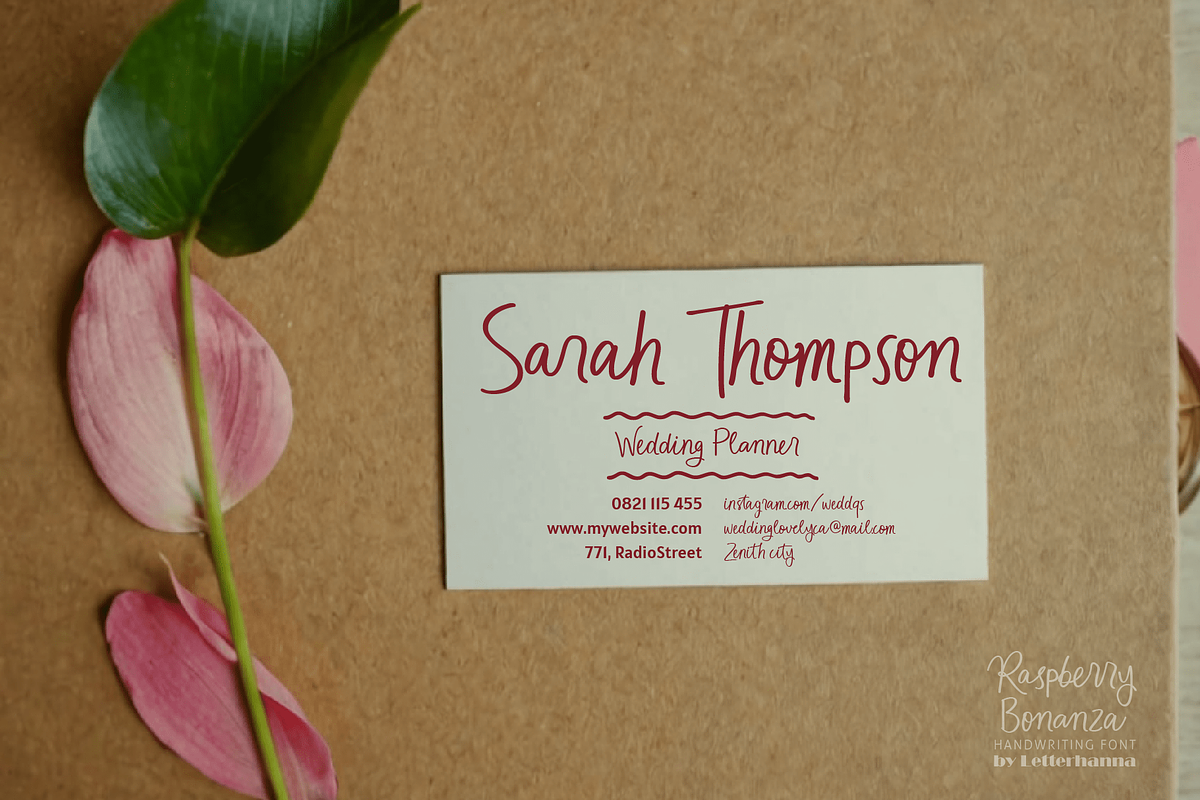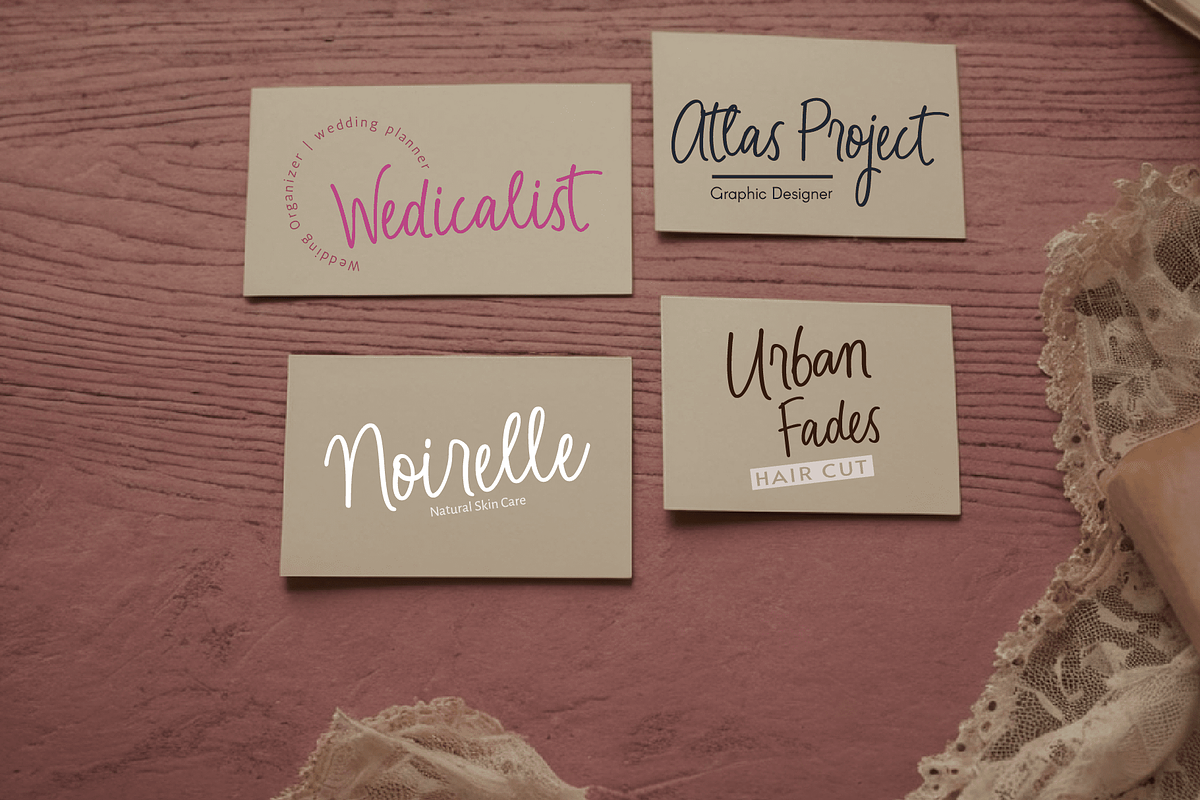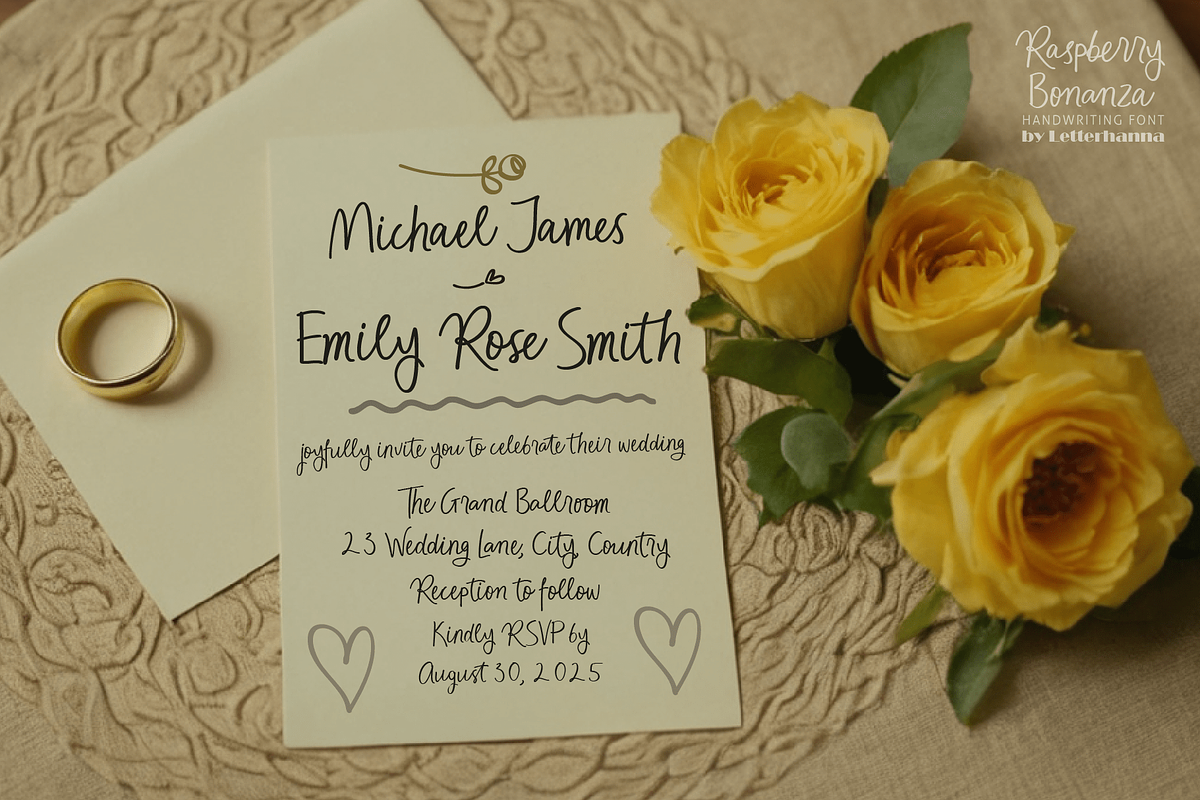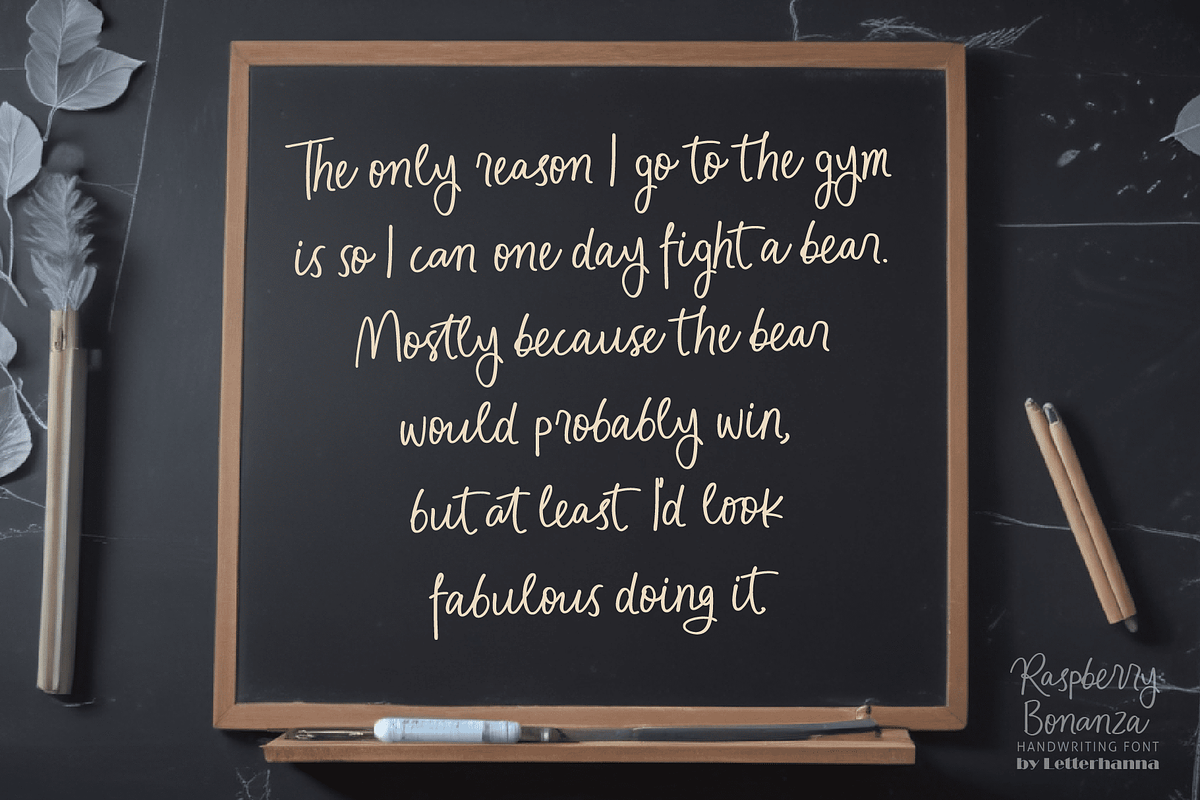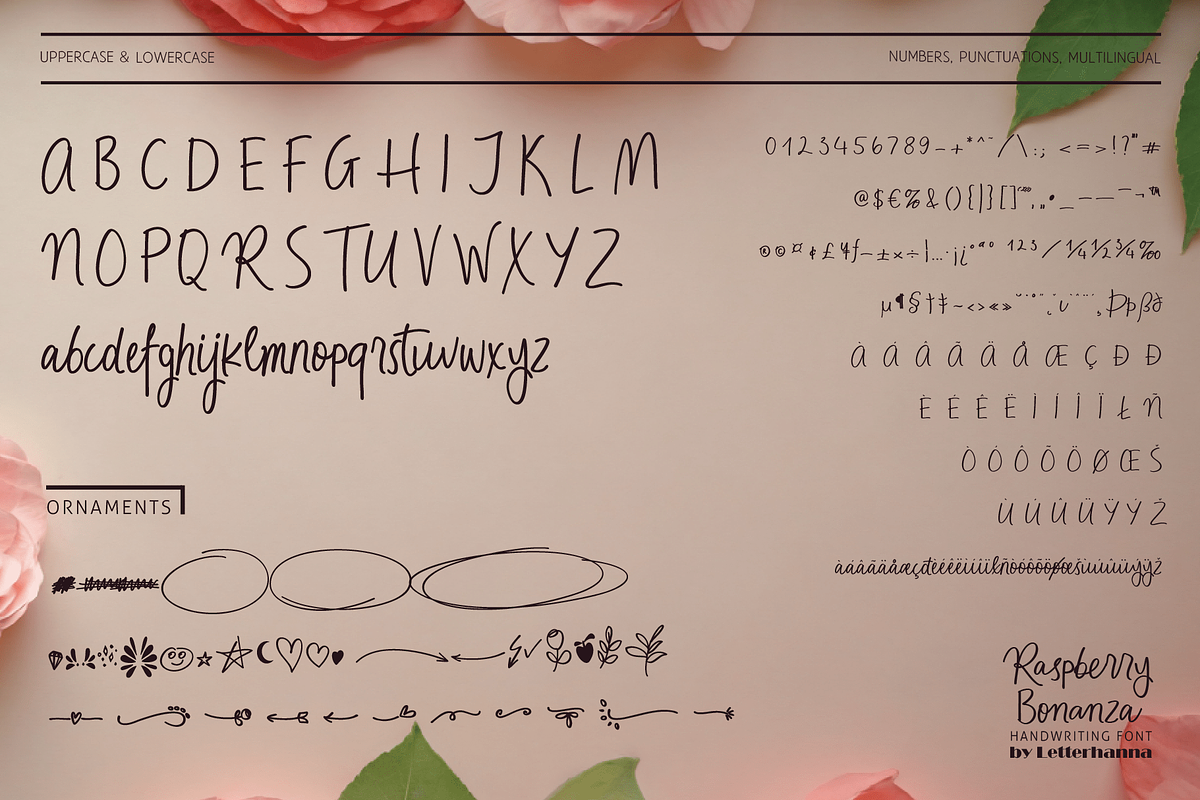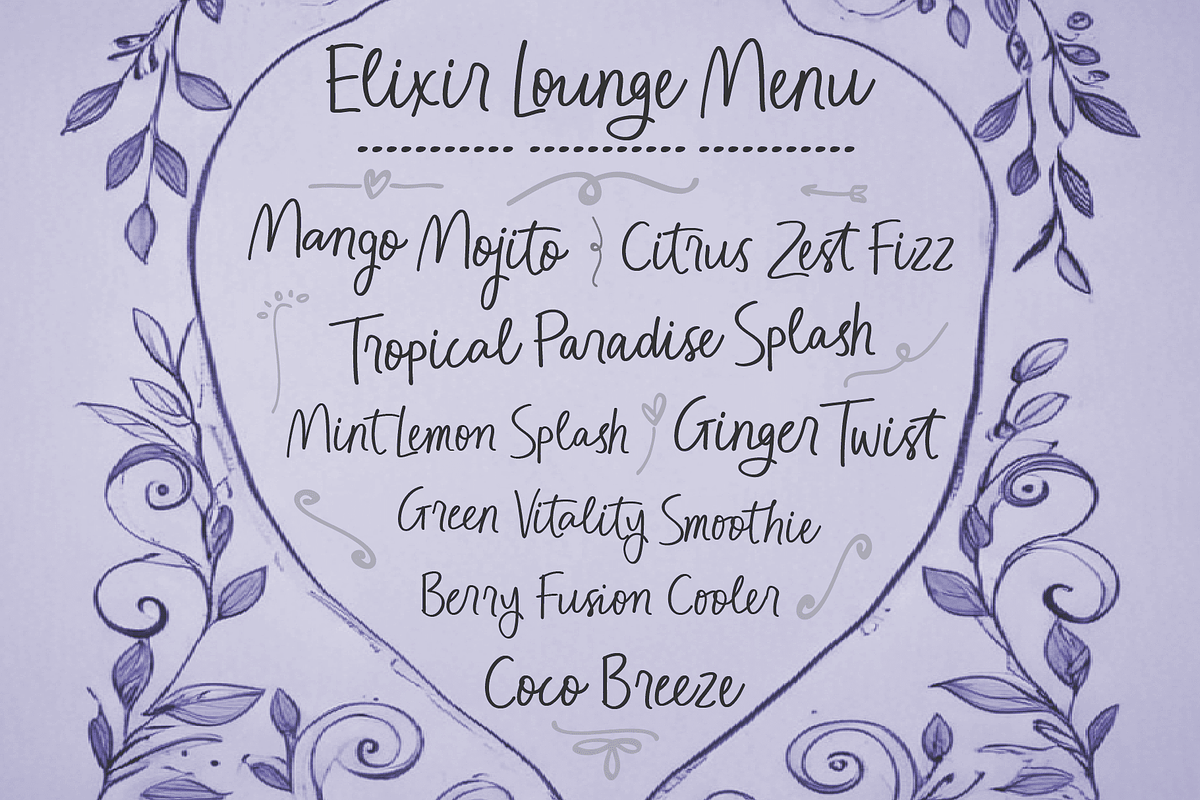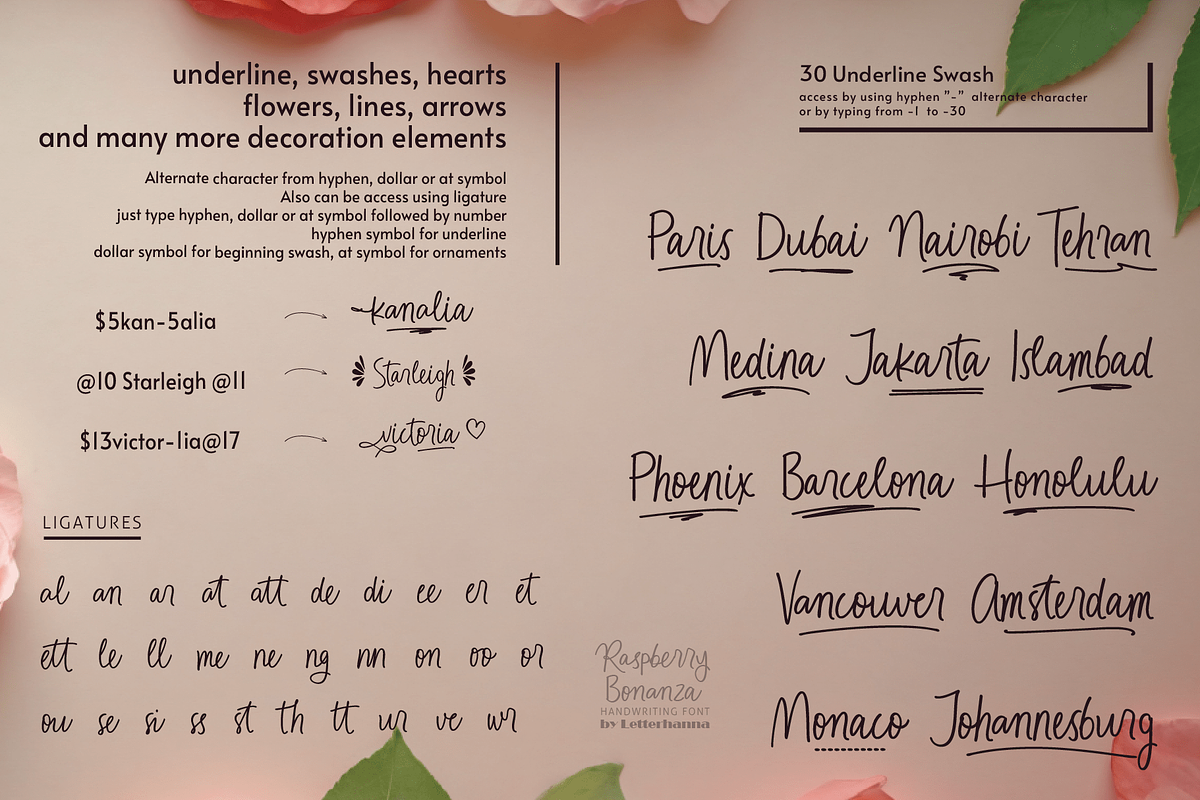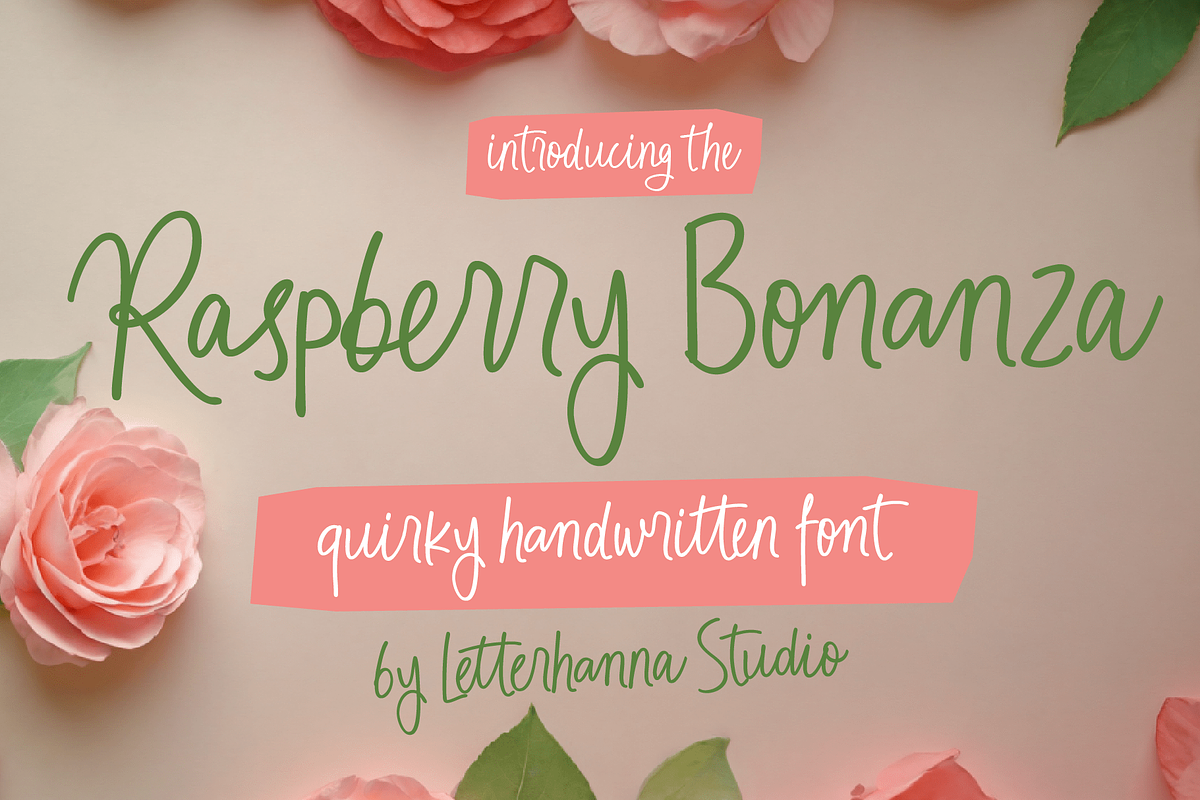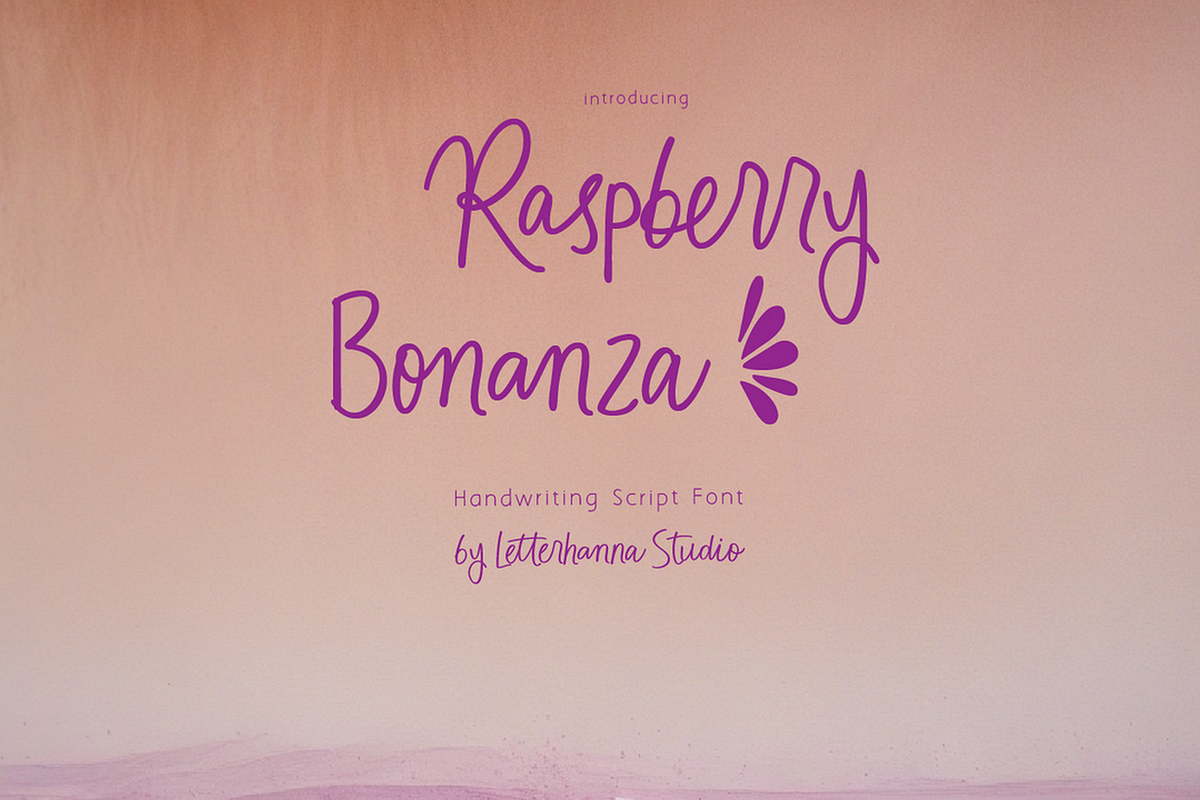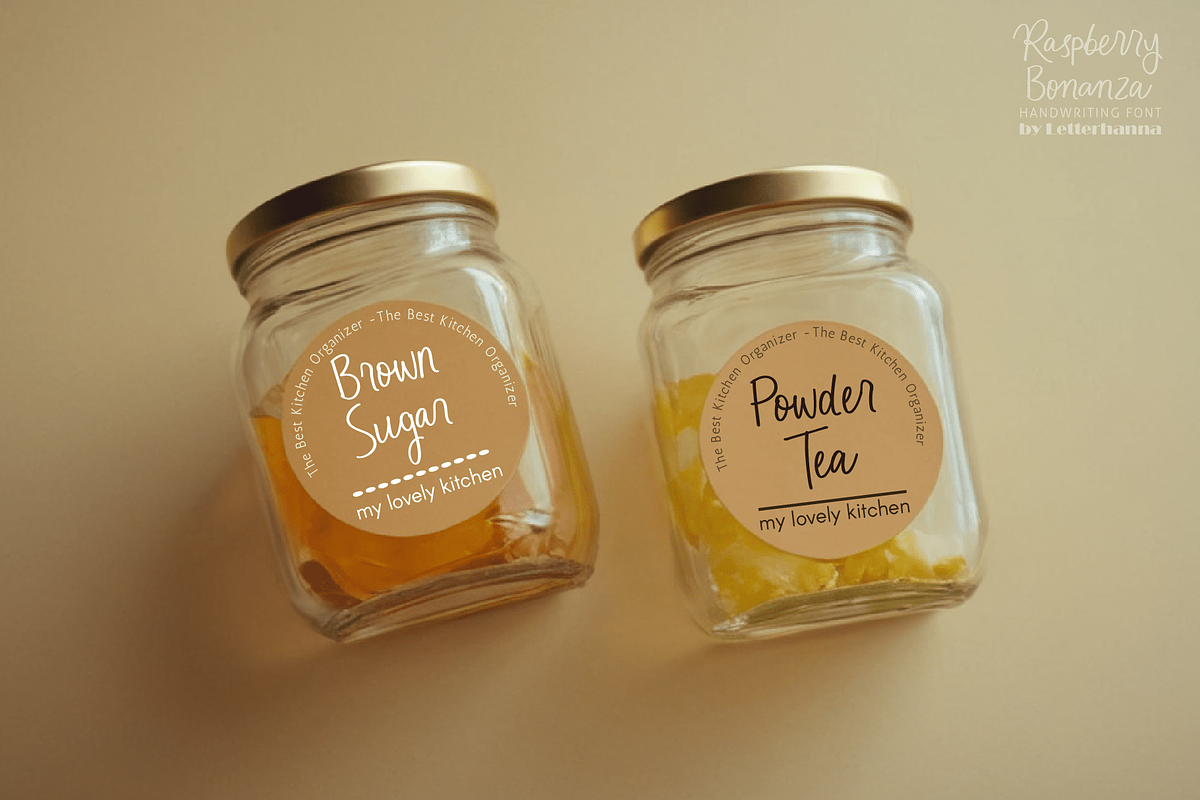
Raspberry Bonanza Quirky Handwriting
Introducing Raspberry Bonanza – A Quirky Handwriting Delight!
Get ready for a burst of personality with Raspberry Bonanza! This fun and playful handwriting script font is packed with charm, featuring quirky letterforms and a unique, handcrafted feel. Perfect for branding, invitations, packaging, and creative projects that need a touch of whimsy. Whether you're designing a bold statement or a casual, artistic vibe, Raspberry Bonanza brings a fresh and lively energy to your work.
Easy Access to Glyphs and Swashes
Gain easy access to all alternate glyphs, swashes, ornaments, and underlines by simply using ligatures. You can try them out yourself in the font preview tool on our website, letterhanna.com.
Accessing Swashes and Ornaments
Underline Swashes: Use a hyphen symbol "-" followed by a number between 1 and 30. For example, type "-3", "-22", or "-17" to get various underline swashes. Head/Beginning Swashes: Use a dollar sign "$" followed by a number between 1 and 9. For example, type "$2" or "$8" to get different head/beginning swashes. Ornaments: Use an "at" symbol "@" followed by a number between 1 and 26. For example, type "@4" or "@13" to get different ornaments.
PUA Encoding for Ease of Use, which means you can access all the glyphs and swashes with ease!
Uppercase and lowercase letters Numbers and punctuation marks Multilingual support Ligatures Underline swashes Ornaments Easy access to swashes using ligatures